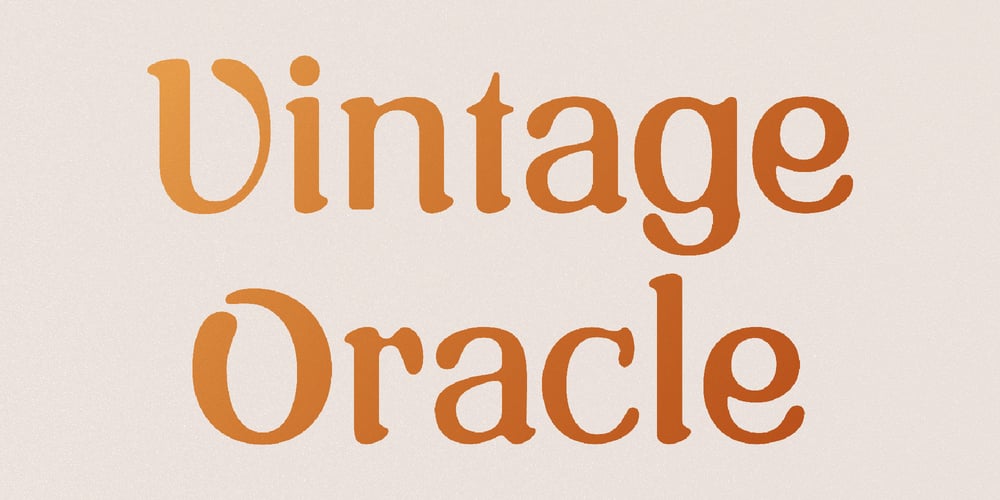
Vintage Oracle Font Family was designed by Igor Ovsyannykov and published by Hipfonts. Vintage Oracle contains 11 styles and family package options. The versatility of Vintage Oracle lies in its ability to transcend eras; it’s as fitting for creating an old-school vibe as it is for modern, cutting-edge applications. Whether it’s used in bold headlines, elegant invitations, or stylish product packaging, its unique character adds depth and personality.The expansive range of weights and styles makes Vintage Oracle a go-to choice for typographers and graphic designers seeking a font that speaks with both historical elegance and modern adaptability. This typeface isn’t just a font; it’s a bridge between the past and present, offering endless opportunities to create designs that are both nostalgic and refreshingly innovative.